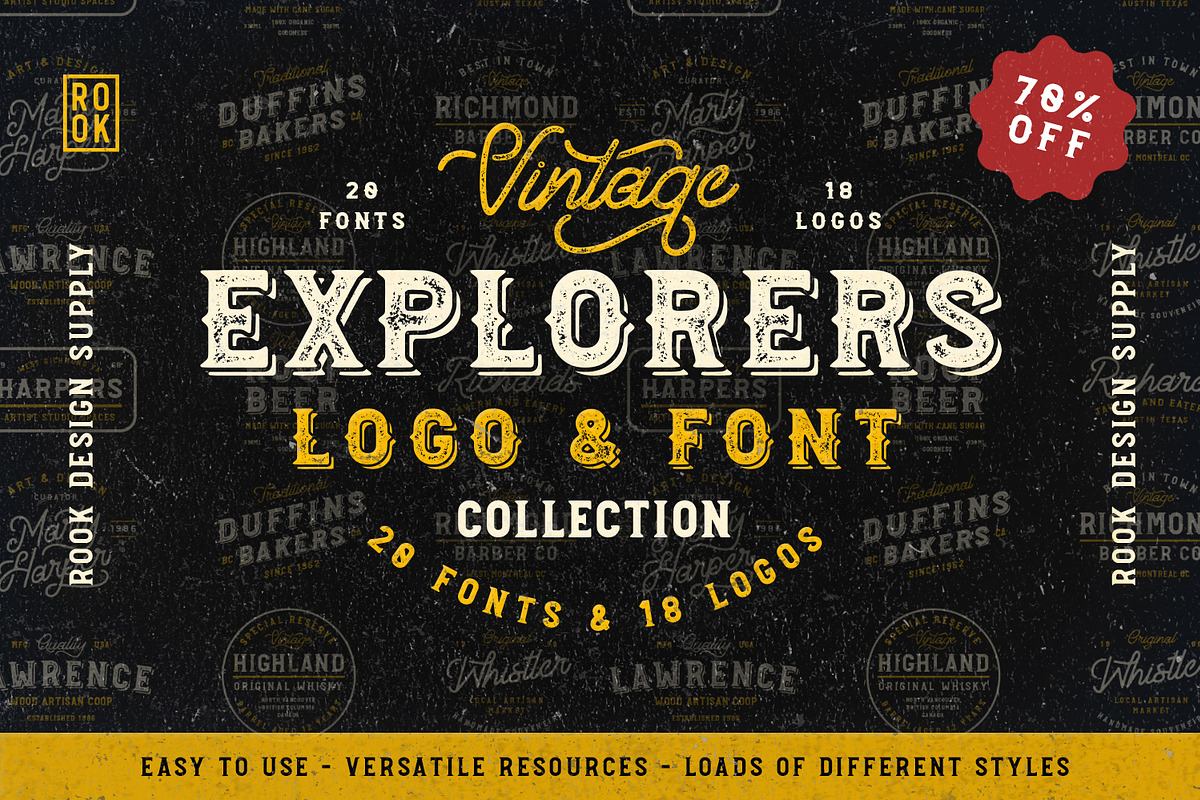
The Explorers Logo & Font Collection Free Download is a rugged and adventurous set of fonts designed for outdoor-inspired branding, travel gear, camping graphics, and vintage-style logos. This collection includes a mix of bold display fonts, hand-drawn elements, and premade logo templates—giving creators a powerful toolkit to craft authentic, nature-themed designs.
With textured details and retro aesthetics, each typeface in this bundle brings a handcrafted, explorer’s spirit to your work. Whether you're designing for a hiking brand, outdoor blog, or rustic apparel line, the Explorers collection offers versatility and character in every letterform. It also includes multilingual support and customizable vector elements to take your creativity further.